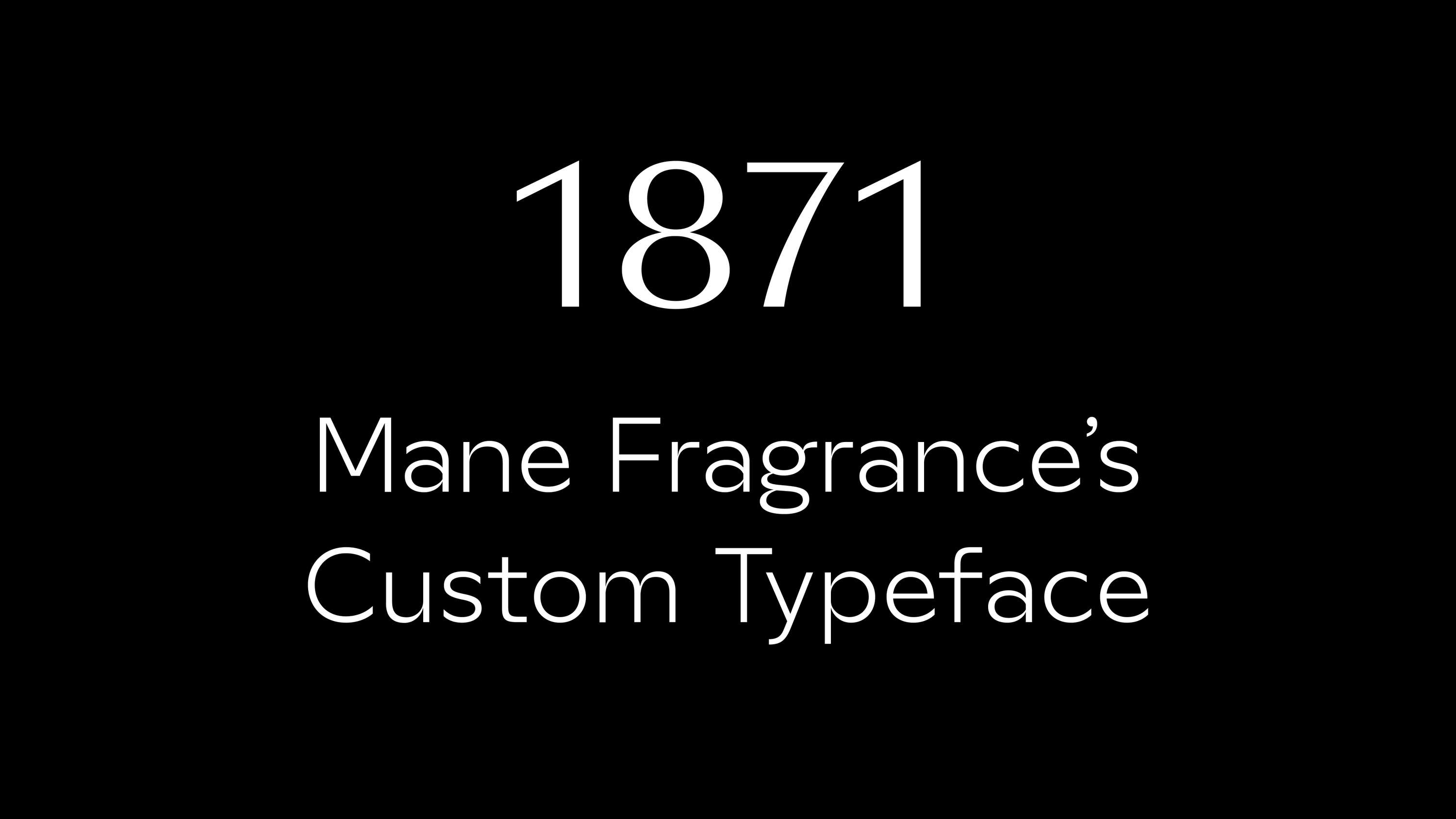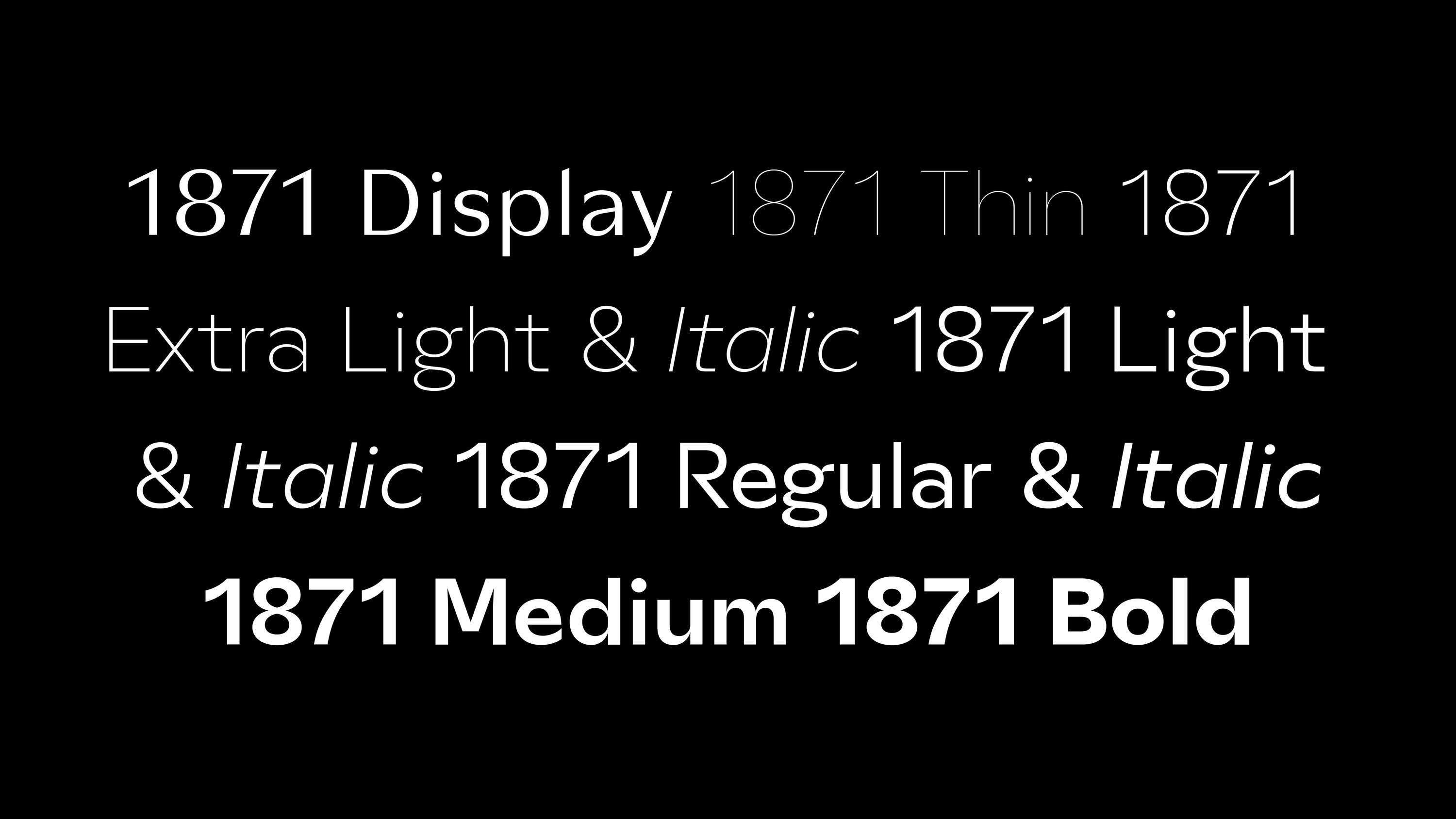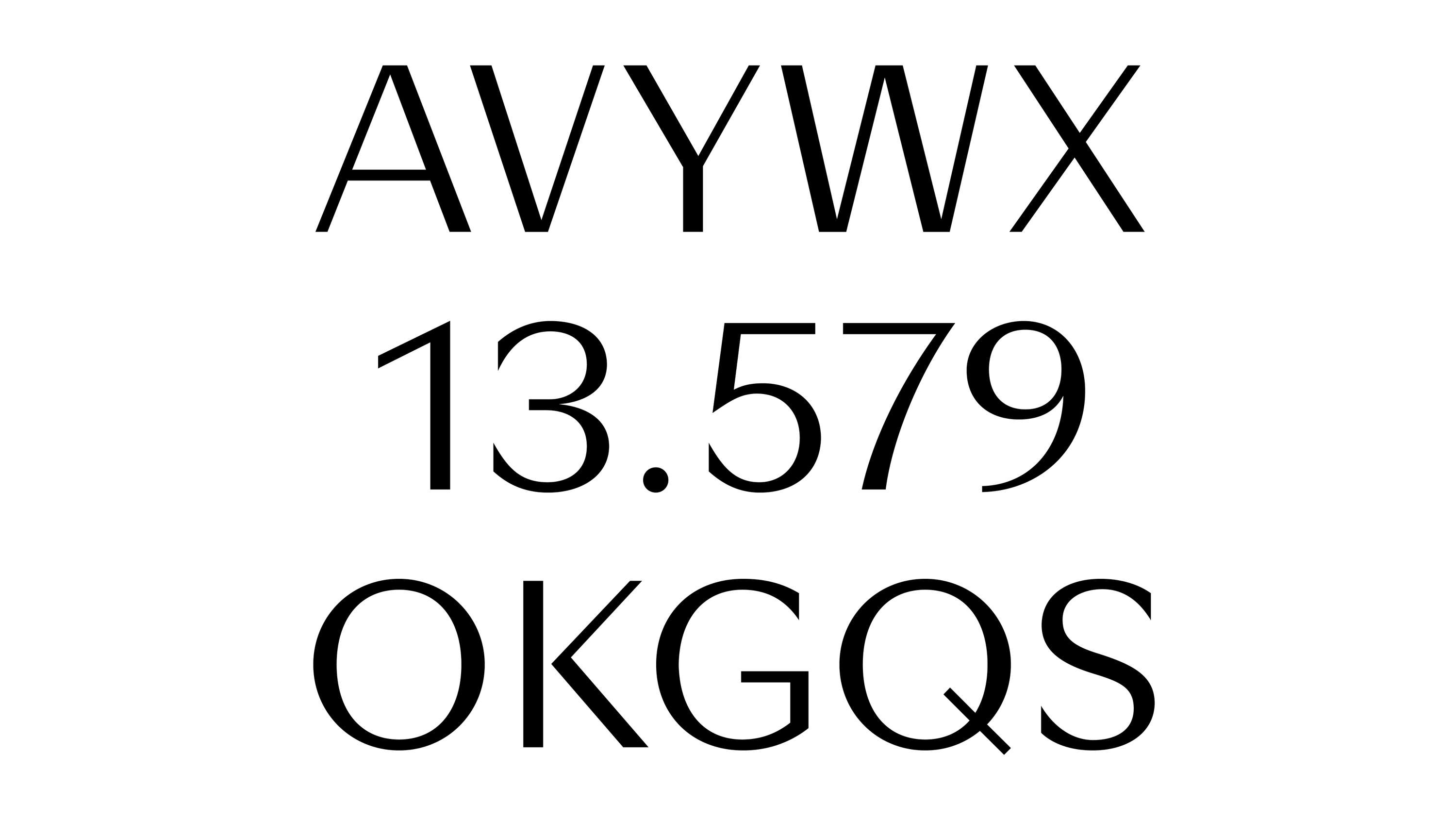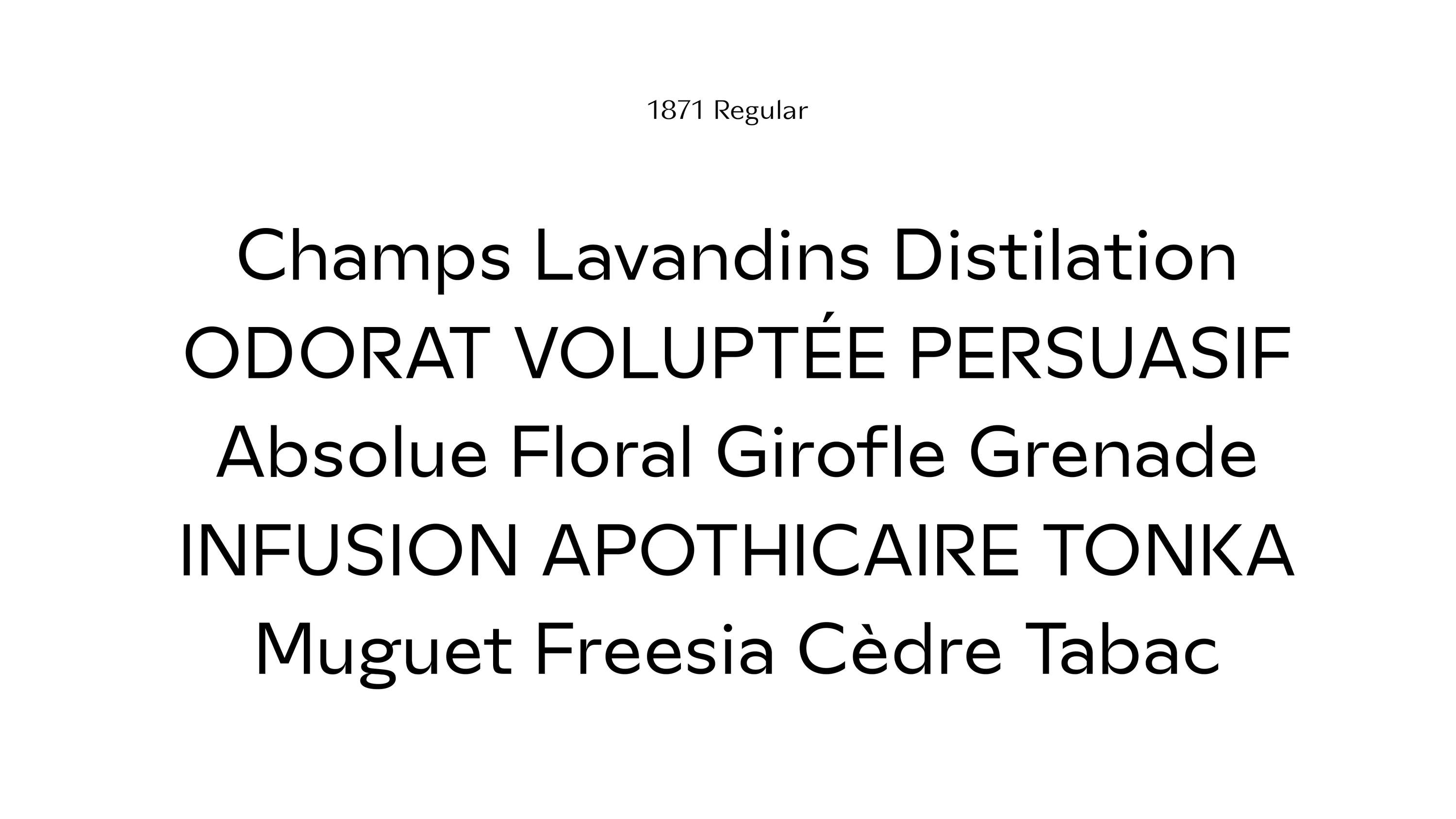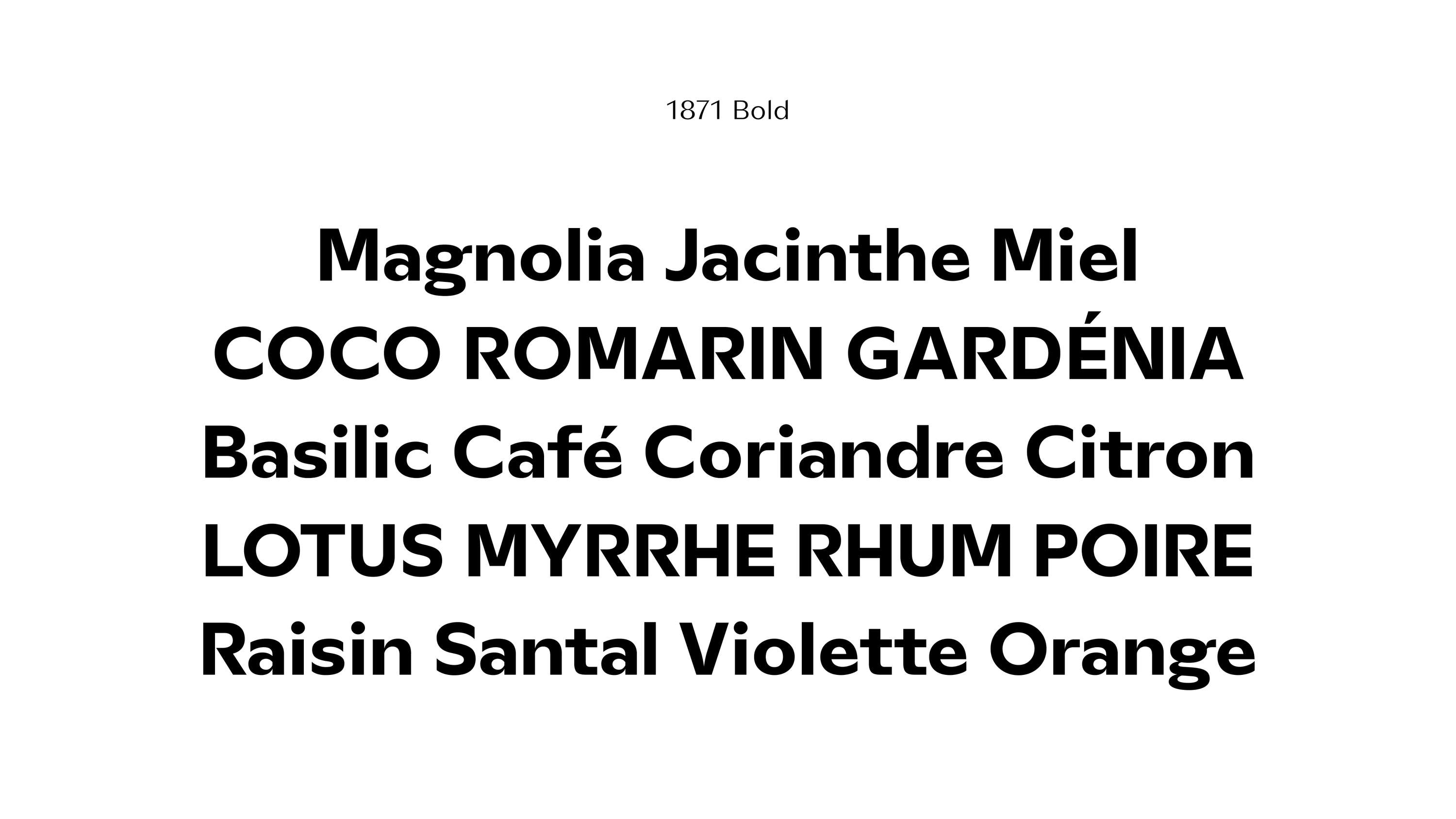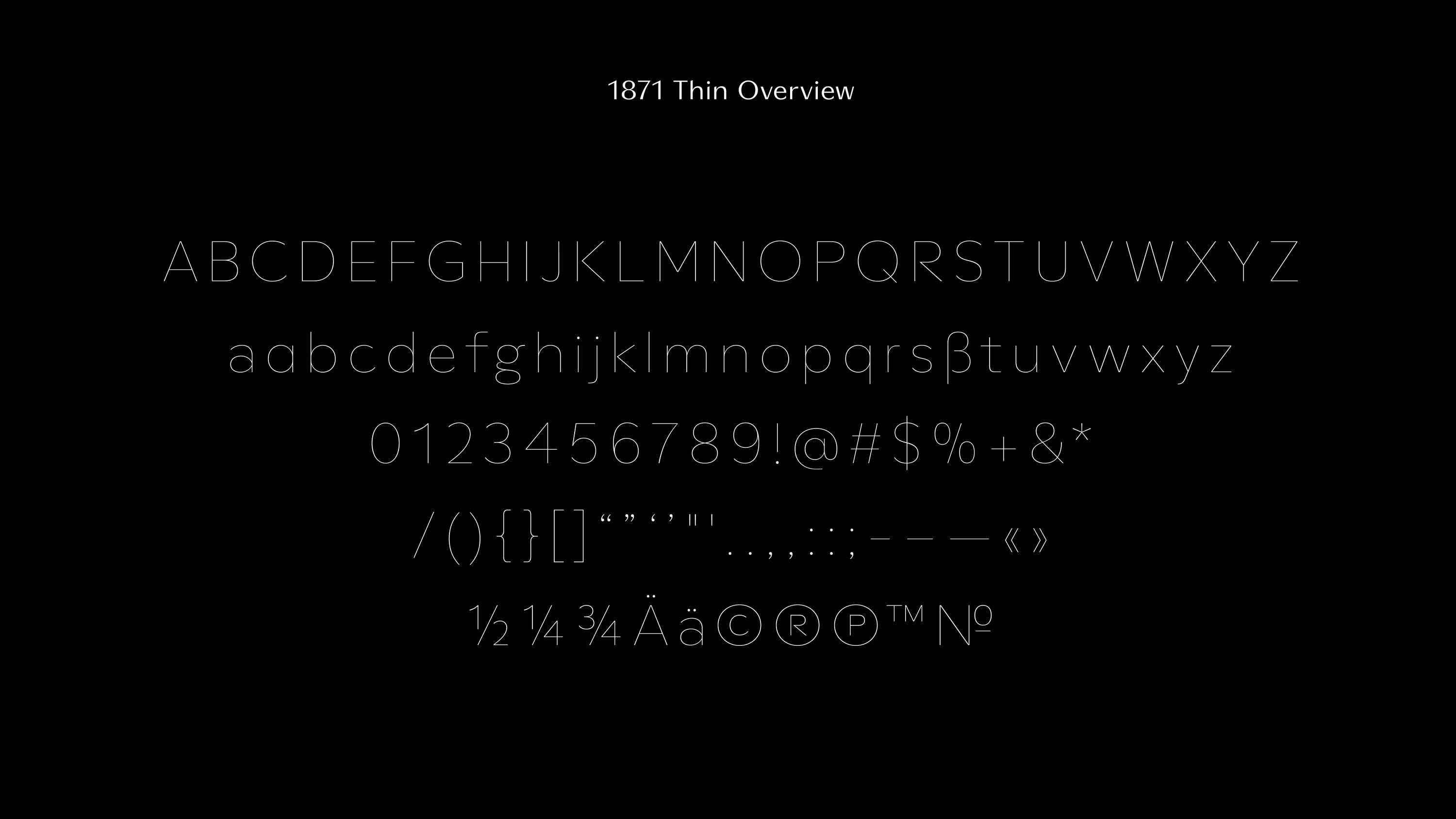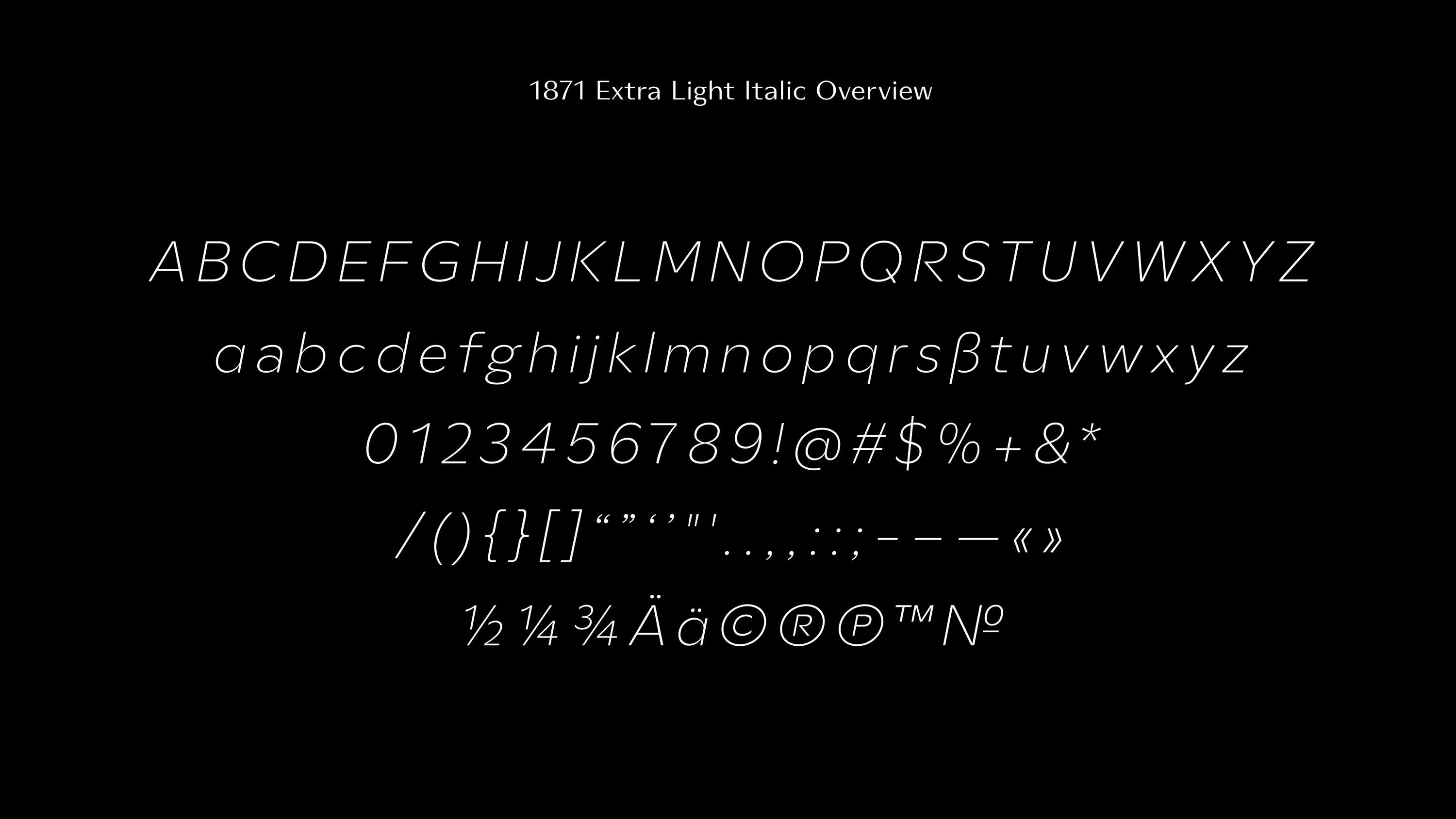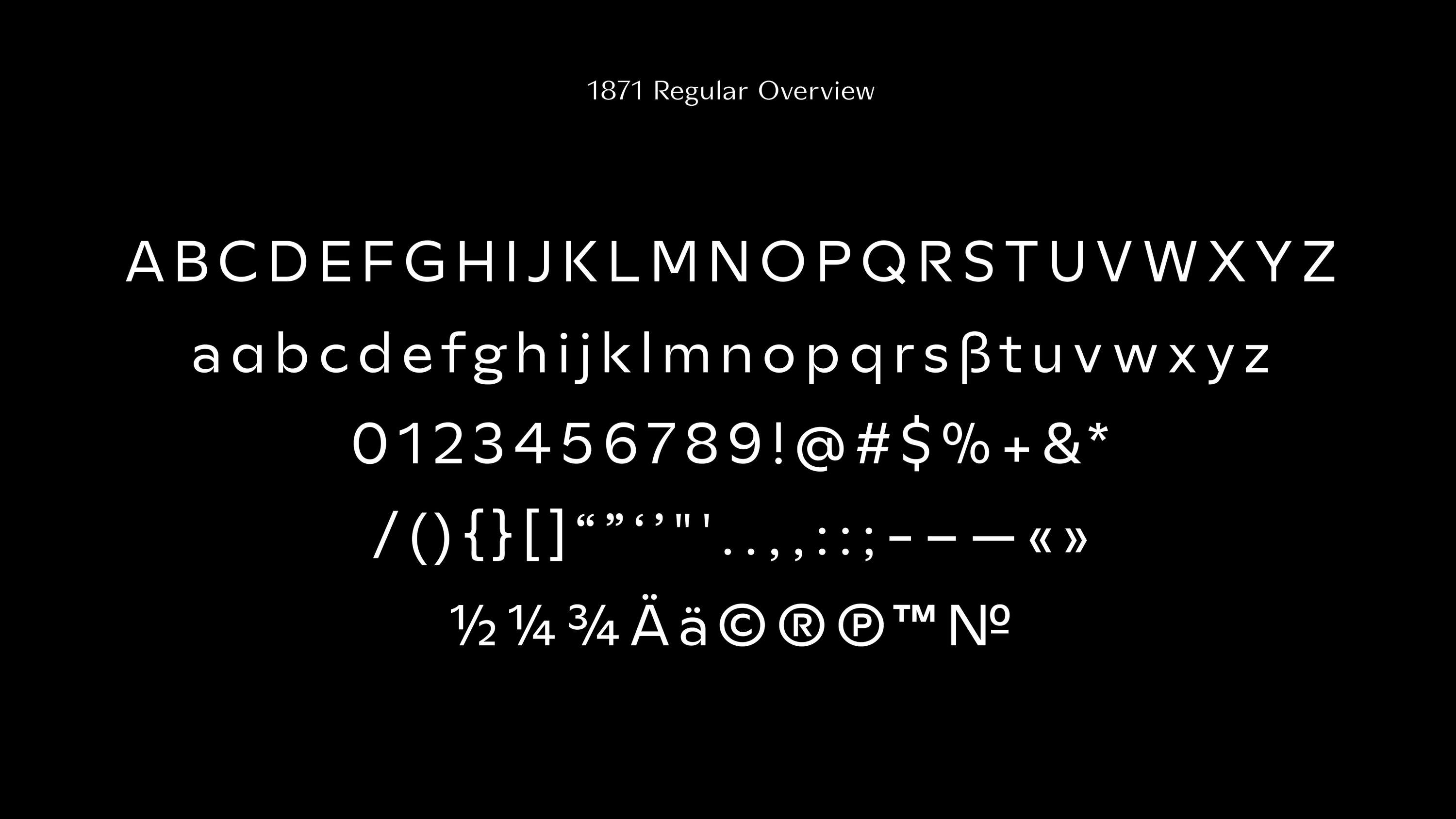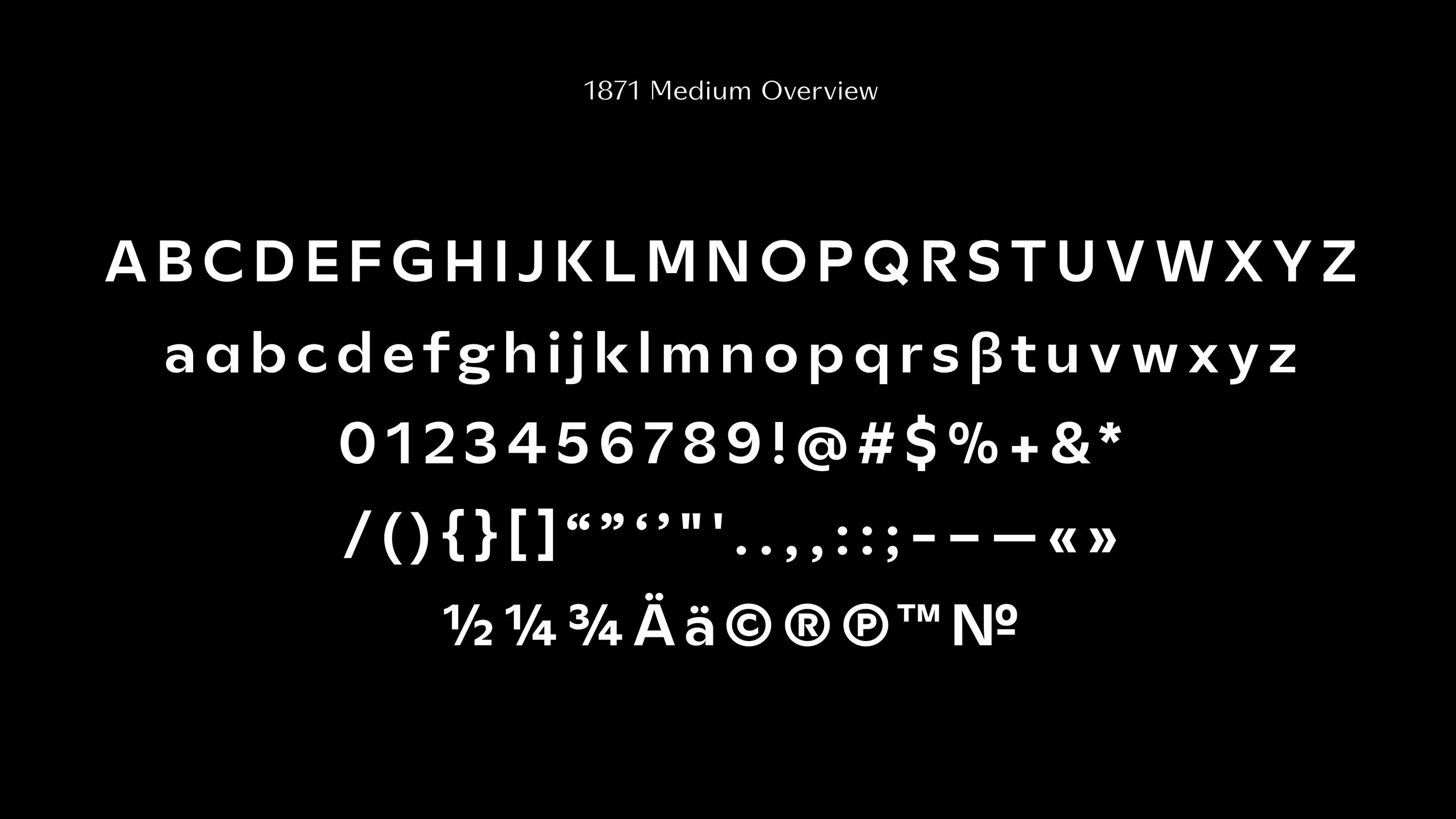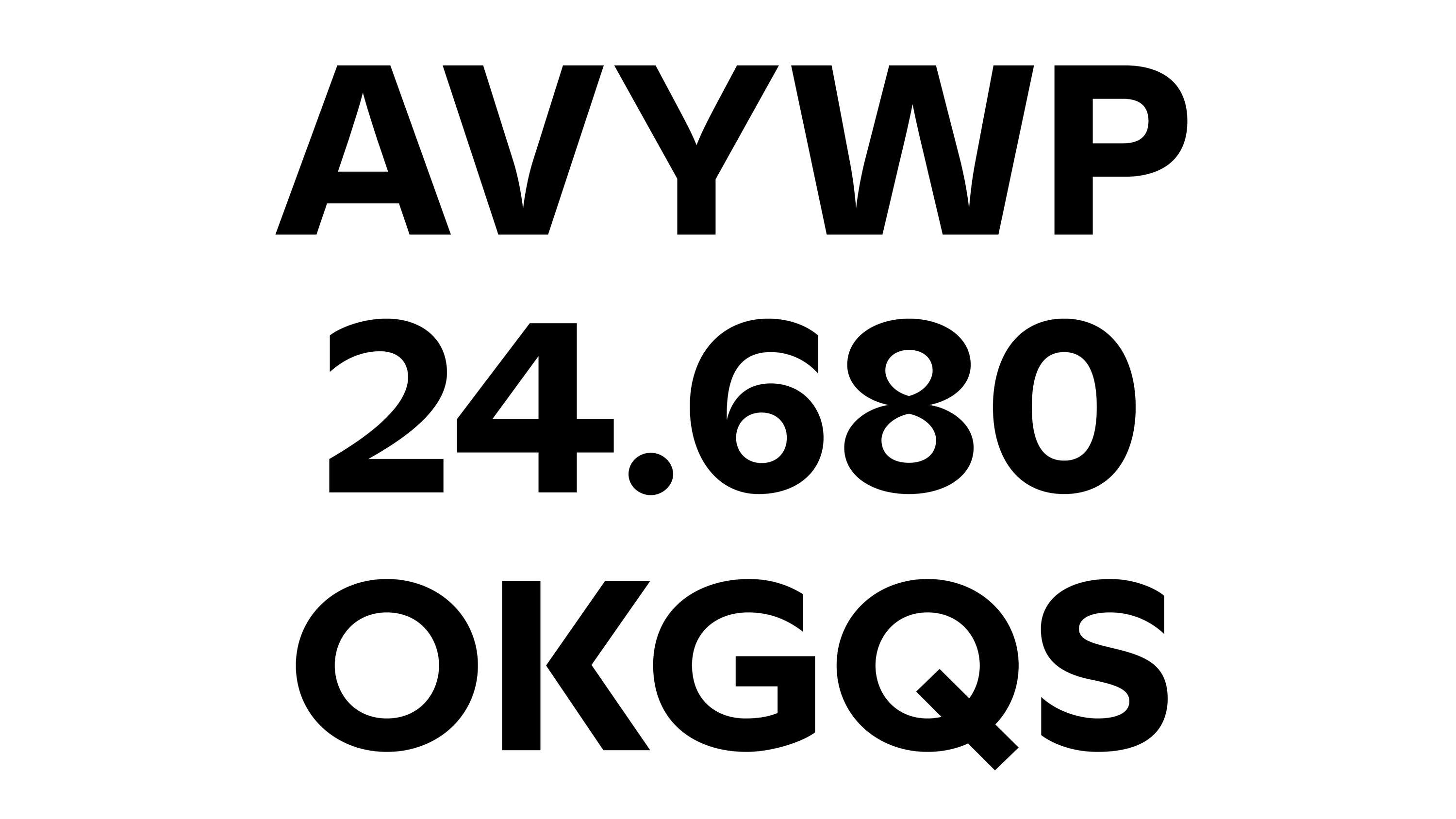
1871 Mane Fragrance's custom typeface
• Adrien Midzic
The design of 1871 was based on a synthesis of research around the Italian typefaces of the 1930s as well as the typographical universe referring to the Art Deco movement. The challenge lay in designing a custom font-family that could blend with the existing visual identity while having a strong personality that borrows from Mane’s DNA. In the desire to anchor this future font-family in the historical territory of the brand, many specificities have been brought. Generally speaking, and with reference to the original logo still in force, the 1871 width is wide and the character has a large x-height in both Display and Text. The contrast between downstrokes and upstrokes in Display version takes its roots in the French Didots of the late 19th century, while the off-center central strokes are a reference to the style ‘Art Déco’. In more detail, the connections between the counter and the stems are refined and sharp. Finally the terminals, incisor in Display, vertical in Text version, are long and open this providing a nice momentum in the drawing and making the reading easier by its horizontality. 1871 is a complete font-family consisting of two versions. Both of 'sans-serif' classification. A Display version, contrasted and a Text version with seven fats and two italics.
1871 Mane Fragrance's custom typeface by Adrien Midzic